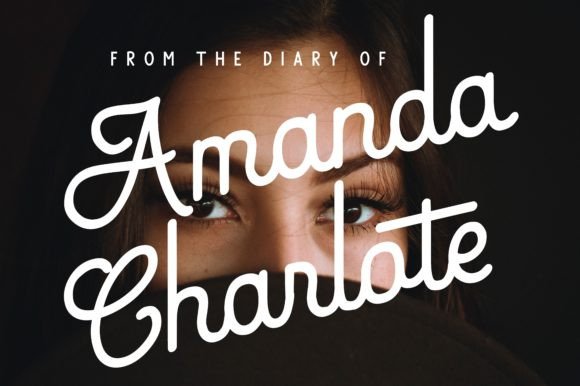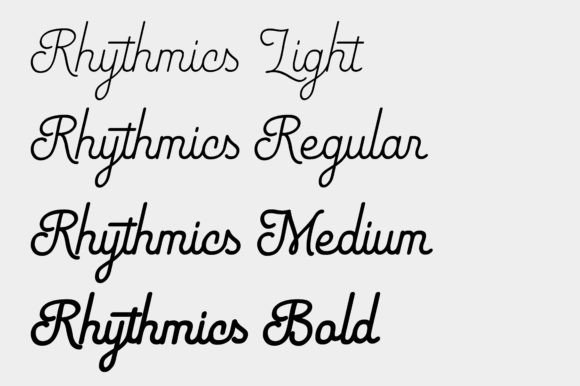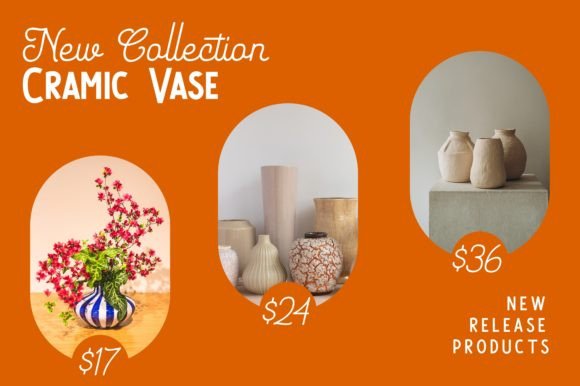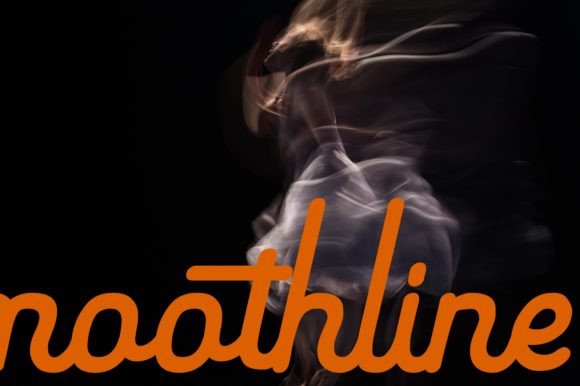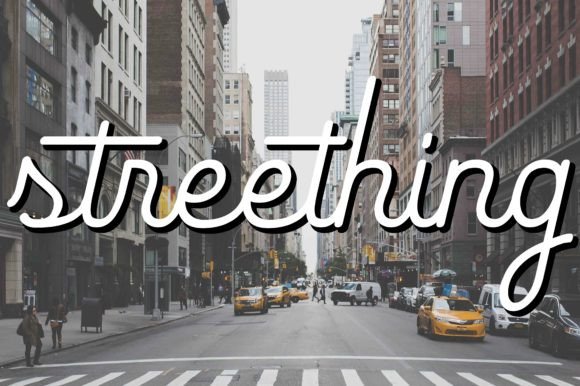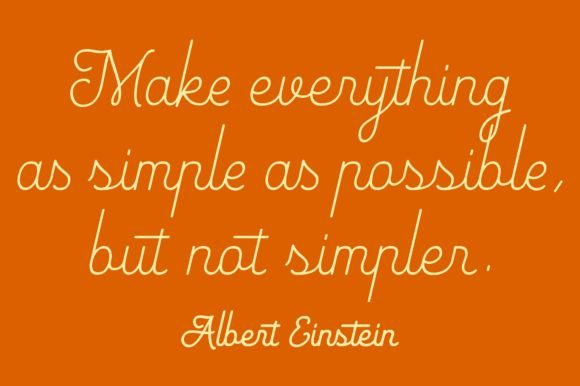
Introduction to Rhythmics Font Font
Fonts play a crucial role in design, and the Rhythmics Font font is a typeface that brings both character and versatility to any project. Whether you’re working on a branding project, a website, or a print design, the Rhythmics Font font offers a unique style that can elevate your work.
Introducing the βRhythmicsβ font.
This adorable handwritten font features cute curly letters and a playful, bouncy style that will bring a smile to any design Perfect for invitations, greeting cards, and social media graphics, this font is sure to capture hearts and attention.
Key Features of Rhythmics Font Font
Why Choose Rhythmics Font Font?
The Rhythmics Font font is more than just a typeface β it’s a design tool that helps you communicate your message with style and clarity. Its unique character set and versatile design make it suitable for a wide range of applications, from elegant invitations to bold headlines.
With its carefully crafted letterforms and balanced proportions, the Rhythmics Font font ensures readability and visual appeal across all mediums.
What makes Rhythmics Font font special?
The Rhythmics Font font stands out with its unique design, exceptional readability, and versatility across various design applications.